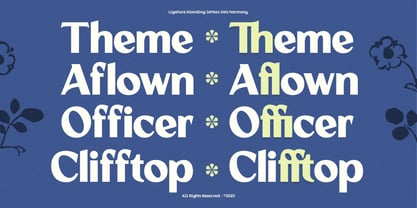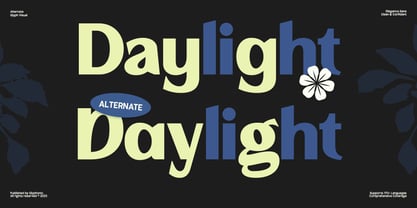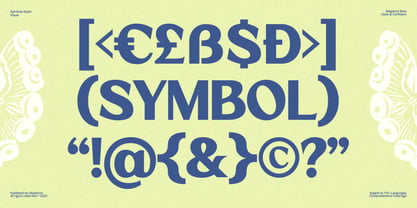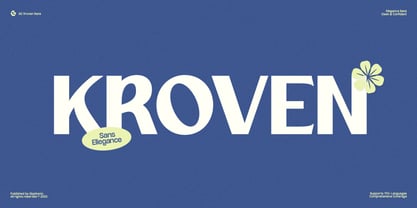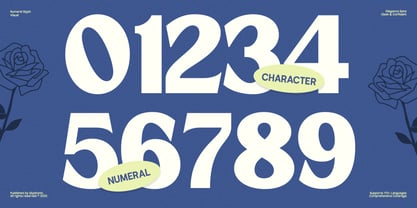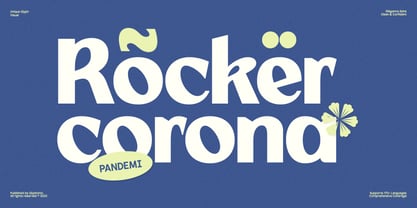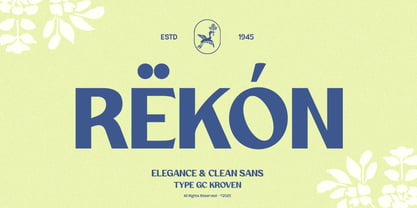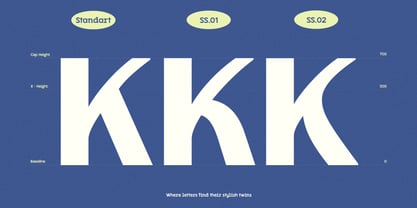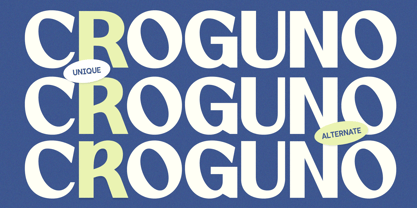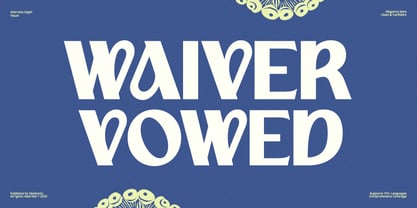
GC Kroven
GC Kroven is a modern sans serif typeface that blends timeless elegance with confident clarity. Perfectly suited for headlines, branding, logos, packaging, and editorial layouts, it’s designed to deliver a bold yet refined statement in every use.
With its clean lines, balanced proportions, and subtle geometric touches, GC Kroven brings personality and sophistication to any design. Whether you're creating for fashion, lifestyle, or contemporary branding, this typeface offers versatility and enduring style.
Features:
• Uppercase & Lowercase
• Ligatures & Stylistic Alternates
• Numbers & Punctuation
• Multilingual Support
Make your design bold, refined, and timeless with GC Kroven.